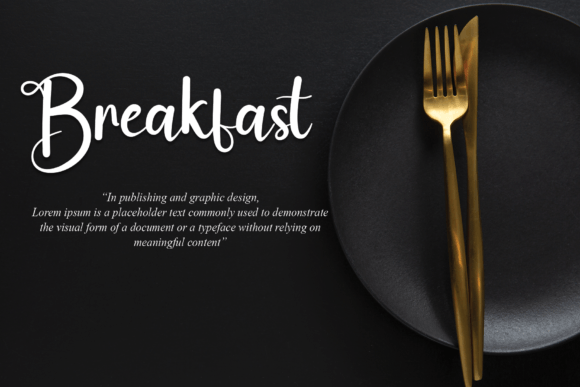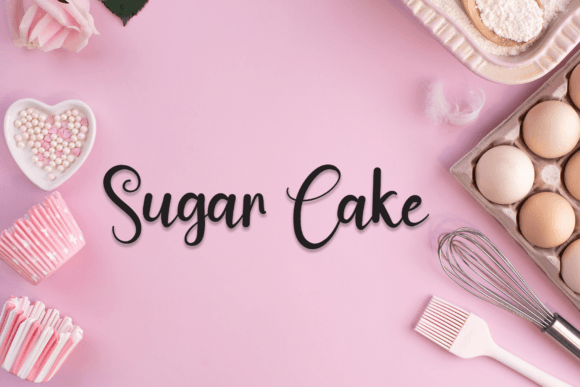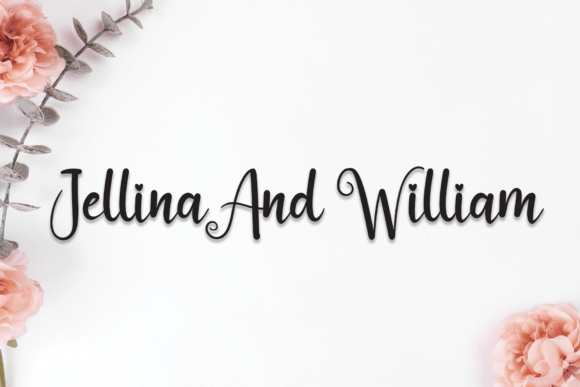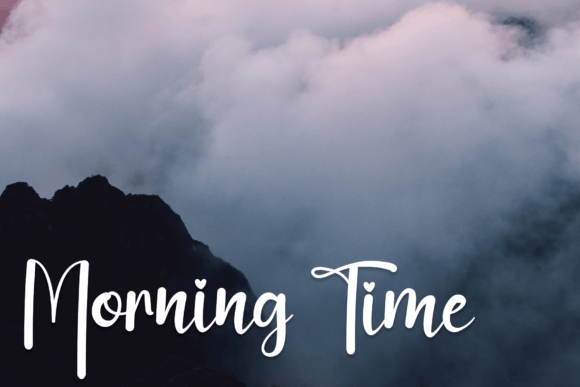
Mandala Font
The Mandala Font Download is a fun and friendly handwritten script that adds charm, personality, and warmth to your projects. With its smooth handwritten strokes and approachable style, Mandala is versatile enough for invitations, posters, branding, crafts, and digital content. Its balance of playfulness and clarity makes it a favorite for both professionals and hobbyists.
A Fun Handwritten Script with Playful Charm
Unlike ordinary fonts, the Mandala script font blends casual handwritten flow with modern elegance. As a result, it feels creative, friendly, and stylish, making it suitable for projects that need personality while maintaining readability.
Handwritten fonts always bring a heartfelt touch to special designs. The Mandala Font is perfect for wedding invitations, thank you cards, birthday notes, and seasonal greetings. Moreover, its natural rhythm ensures your stationery looks polished and meaningful.
Branding and Logo Design with Mandala Font
Typography is essential in brand storytelling. The Mandala handwritten font works wonderfully for boutique logos, product packaging, and promotional campaigns. In addition, its friendly strokes project a professional yet approachable identity for businesses.
Posters, Titles, and Creative Displays
The Mandala Font Download adapts seamlessly to posters, banners, book covers, and magazine layouts. Therefore, it performs well across both small-scale and large-scale applications while keeping its handwritten beauty intact.
In today’s creative digital space, fonts must stand out while being versatile. The Mandala typeface integrates smoothly into Instagram posts, Pinterest graphics, YouTube thumbnails, and blogs. Its playful handwritten look ensures your digital content feels engaging and unique.
Why Designers Choose Mandala Typeface
Designers appreciate fonts that balance usability with personality. Many handwritten scripts look artistic but can lose clarity, while the Mandala handwritten script maintains readability while keeping its playful and inviting charm. This makes it a reliable choice for creatives across all industries.
Add Playful Warmth to Your Projects Today